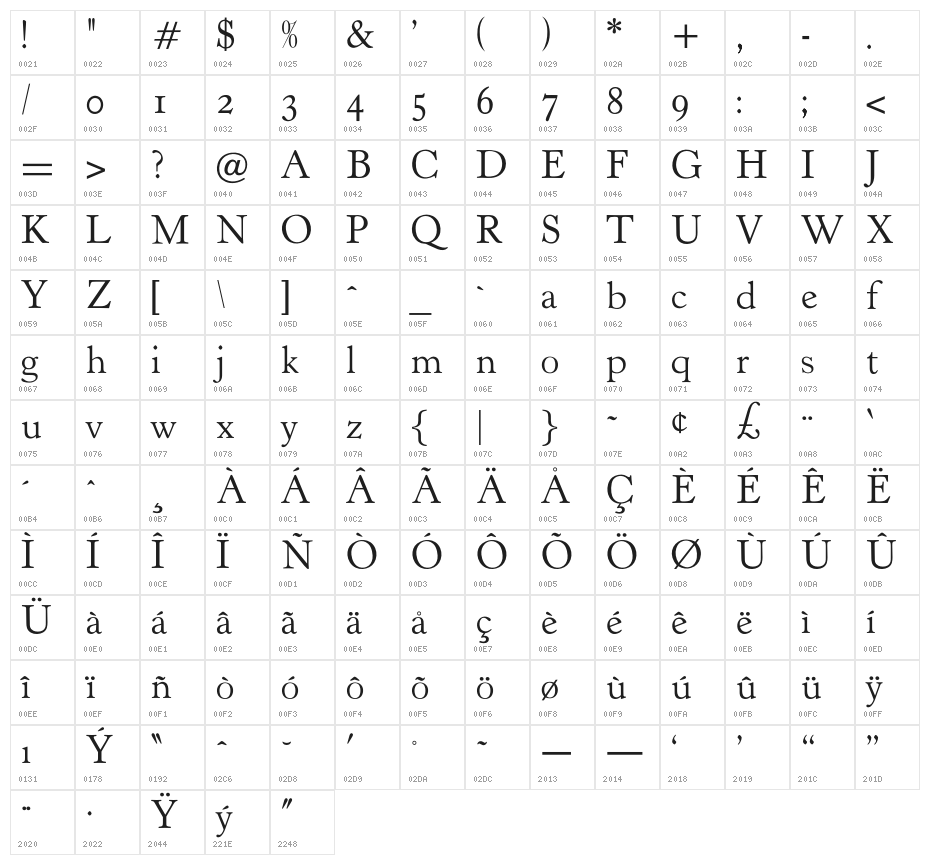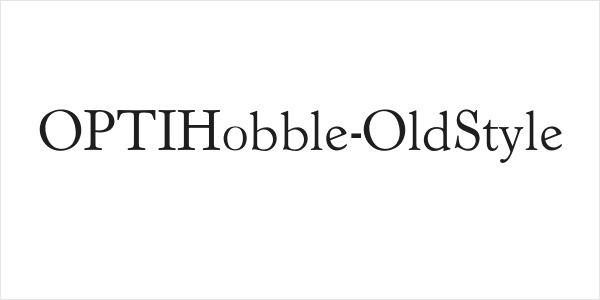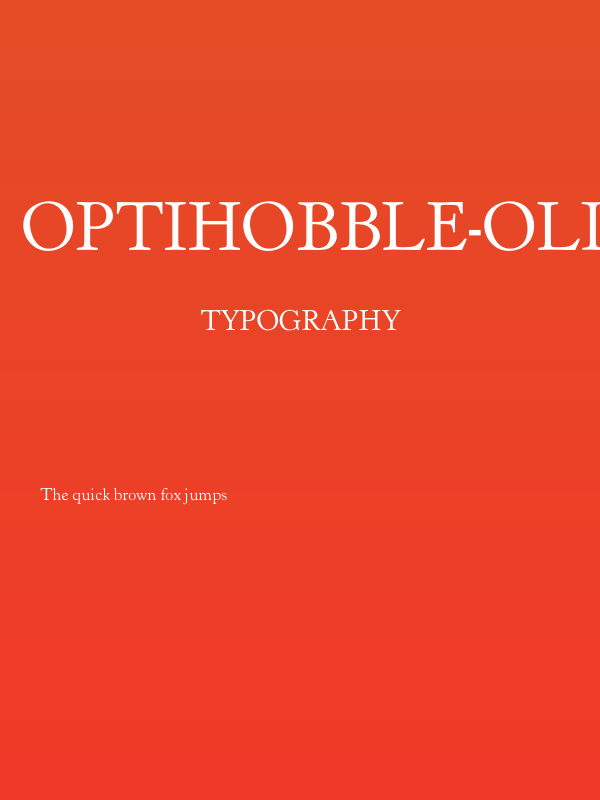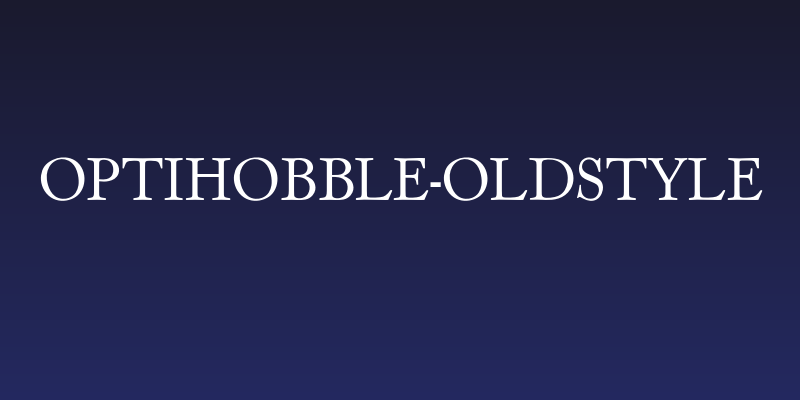
OPTIHobble-OldStyle Font
OPTIHobble-OldStyle Description
This font exudes a classic elegance with its refined serif details and balanced proportions. The uppercase letters are stately and well-defined, while the lowercase characters maintain a harmonious flow, making it suitable for both formal and creative applications. The numerals are clear and distinct, ensuring readability in various contexts. Special characters are thoughtfully designed, complementing the overall aesthetic. The font's timeless appeal makes it versatile for a range of uses, from editorial design to branding.
| Proposed Projects | Ideal for book covers, editorial layouts, branding, and formal invitations. |